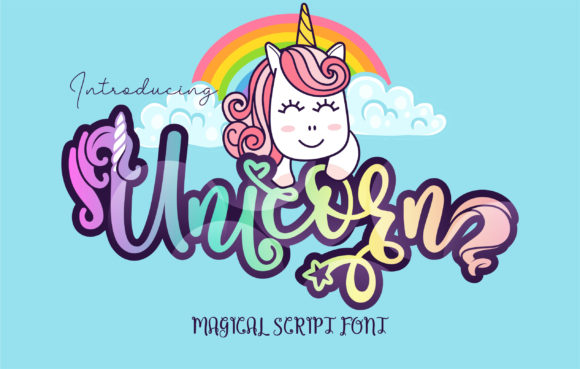
Introducing Unicorn Font, the Best Font For Cups Cricut! This script font, created by Tedha Studio, is perfect for anyone looking for a playful and fun handwritten font. With its cute and whimsical design, Unicorn Font is sure to add a touch of magic to any project.
One of the standout features of Unicorn Font is the abundance of magical alternates that are included. These alternates allow you to customize the font to your liking and create a truly unique look for your design. Whether you're working on a branding project, creating invitations, or designing merchandise, Unicorn Font is the perfect choice.
Another great feature of Unicorn Font is its versatility. Not only can you use it as a script font, but you can also use it as a monogram for a name. This makes it a great option for personalized gifts, such as custom cups or tumblers.
What's even better is that Unicorn Font is PUA encoded, which means you can easily access all of the glyphs and swashes. This makes it incredibly easy to use and customize, even for those who are new to using different fonts.
Overall, Unicorn Font is the perfect choice for anyone looking for a fun and playful script font. With its magical alternates, versatility, and ease of use, it's no wonder that Unicorn Font is the Best Font For Cups Cricut. Download it today and add a touch of whimsy to your next project!